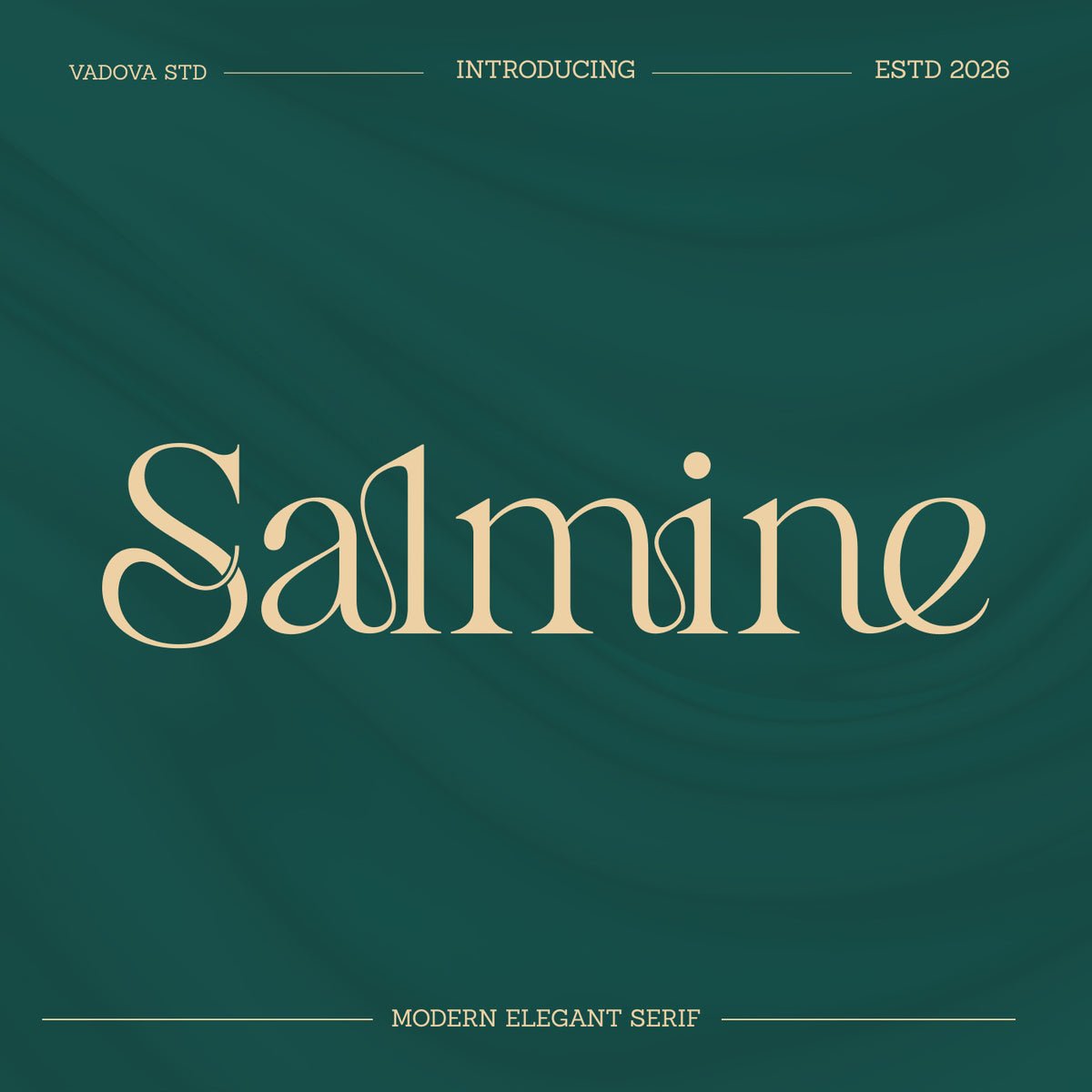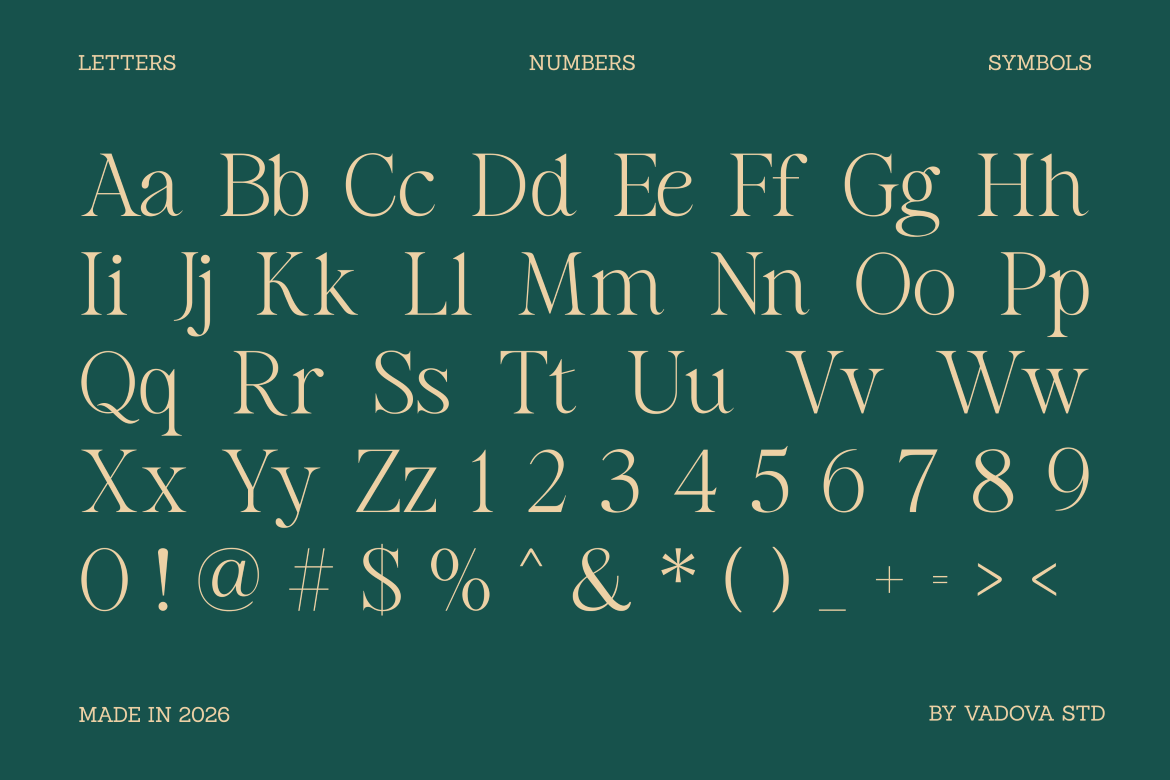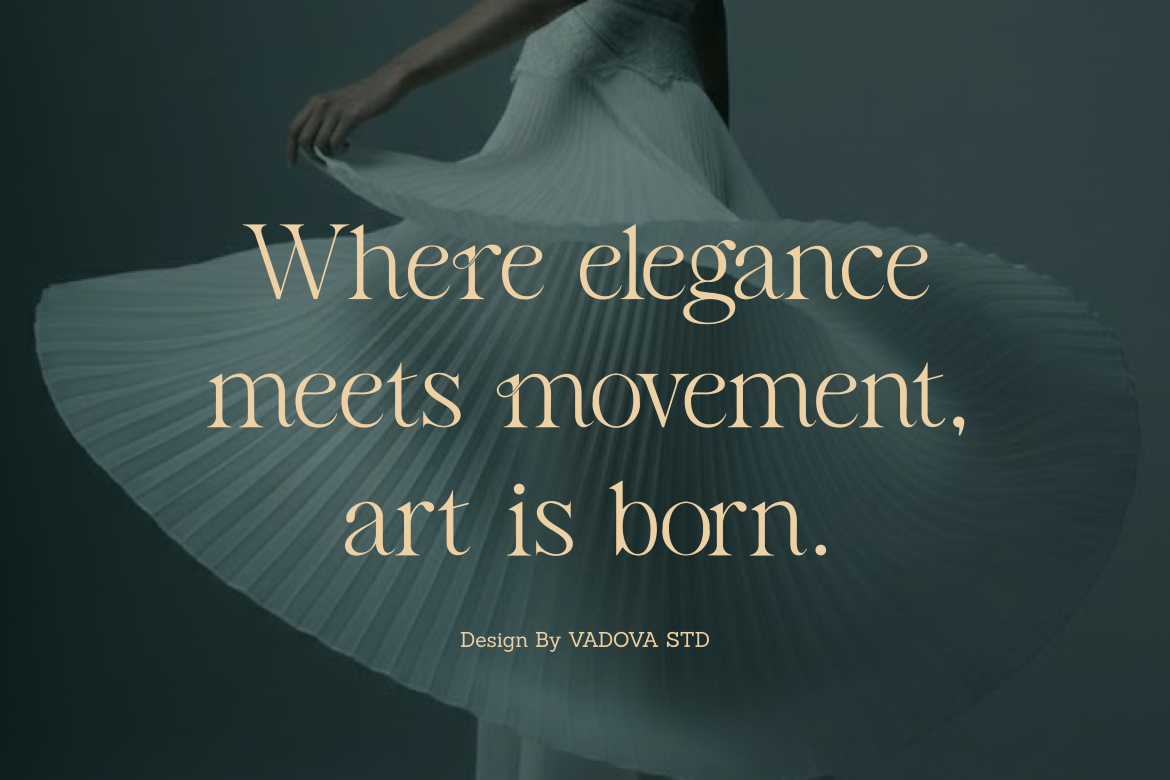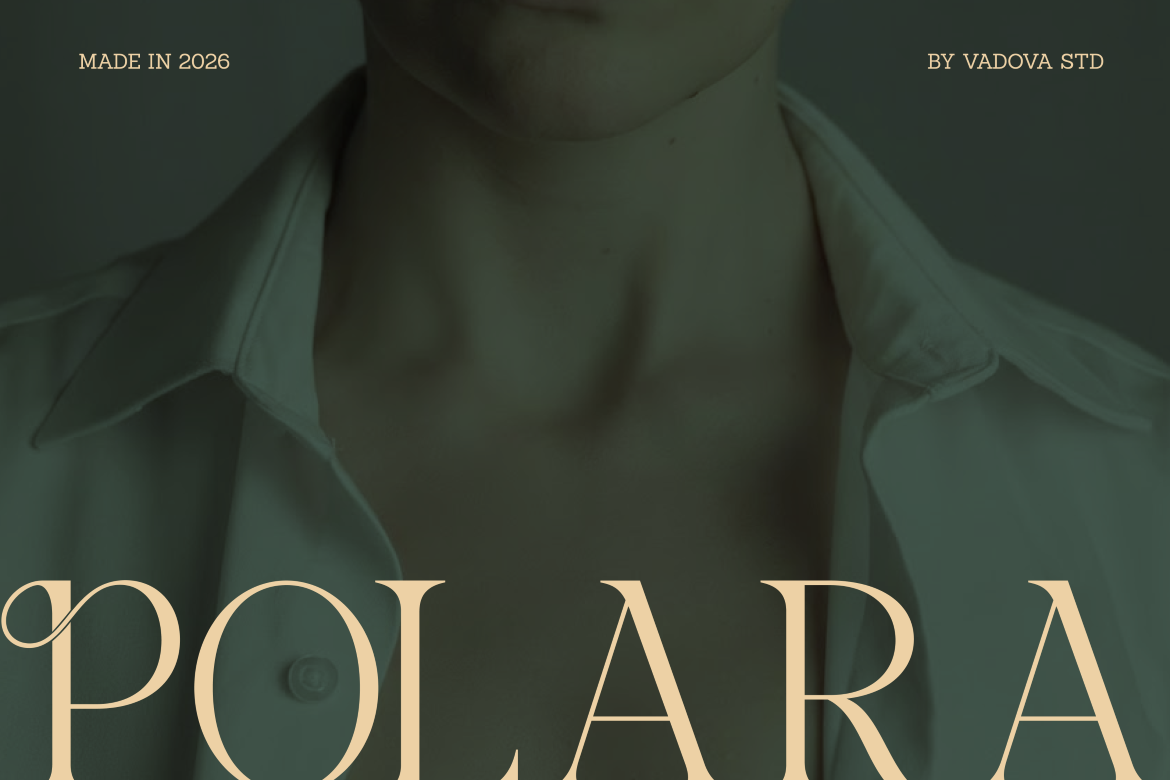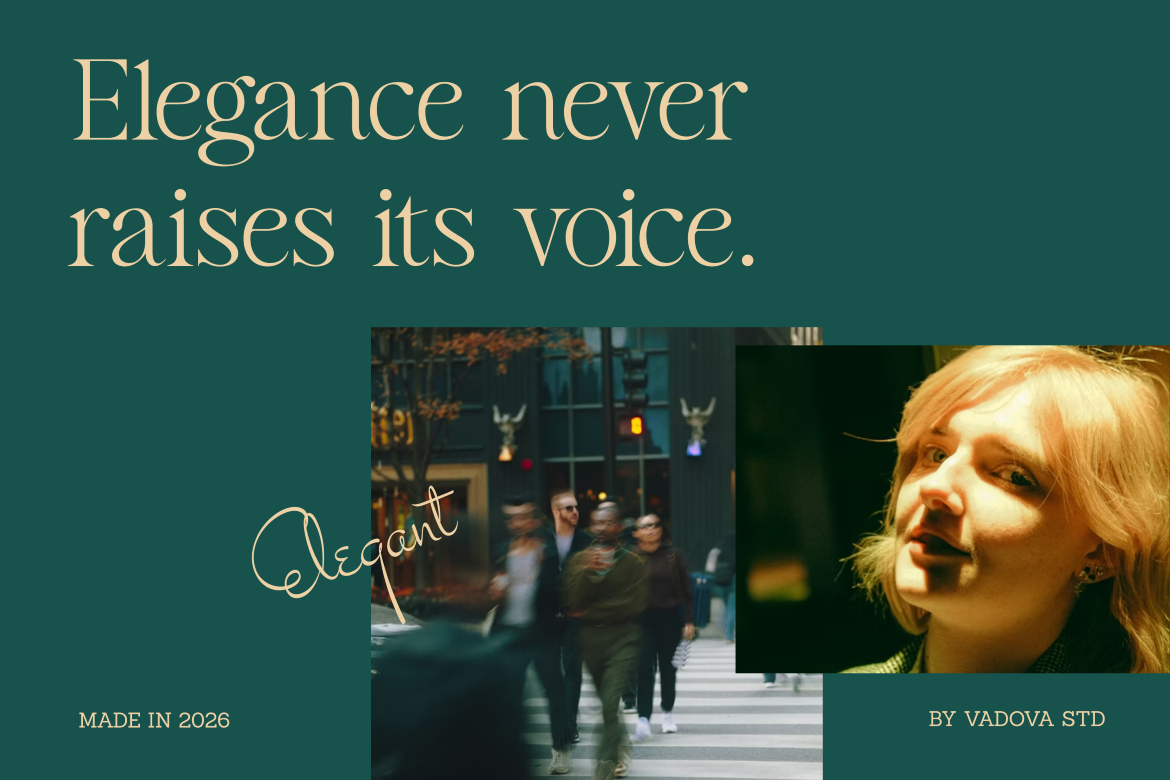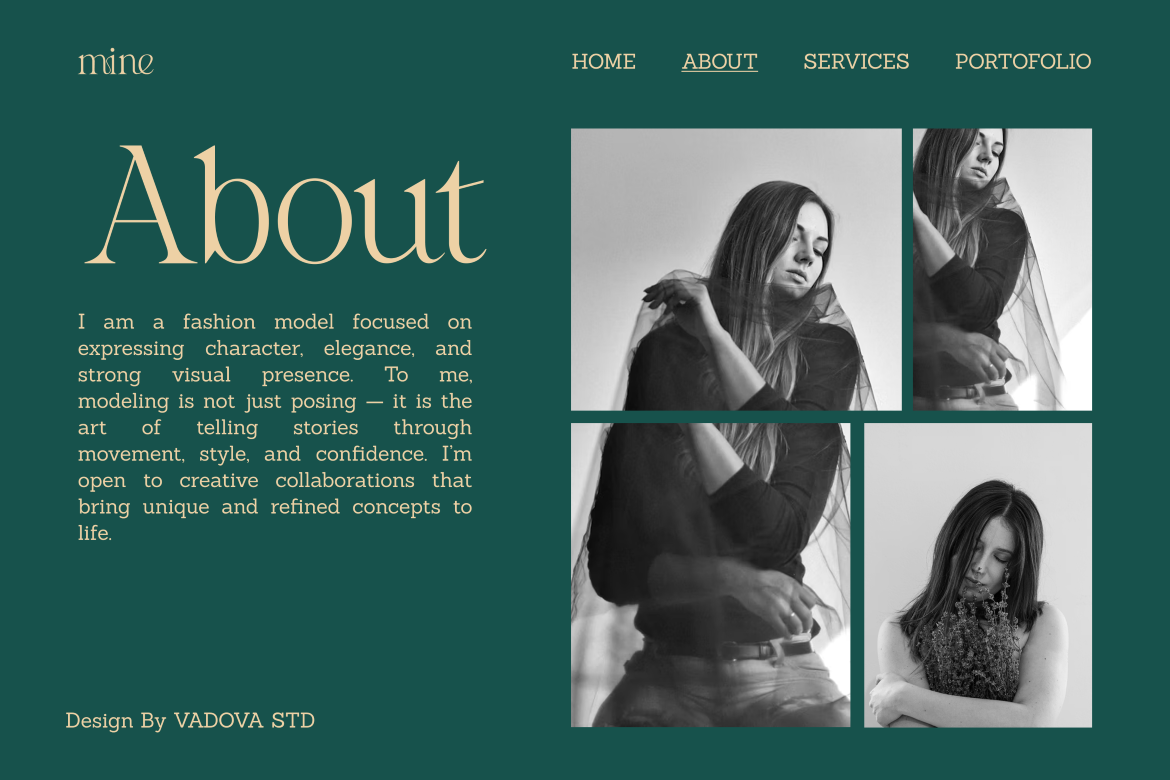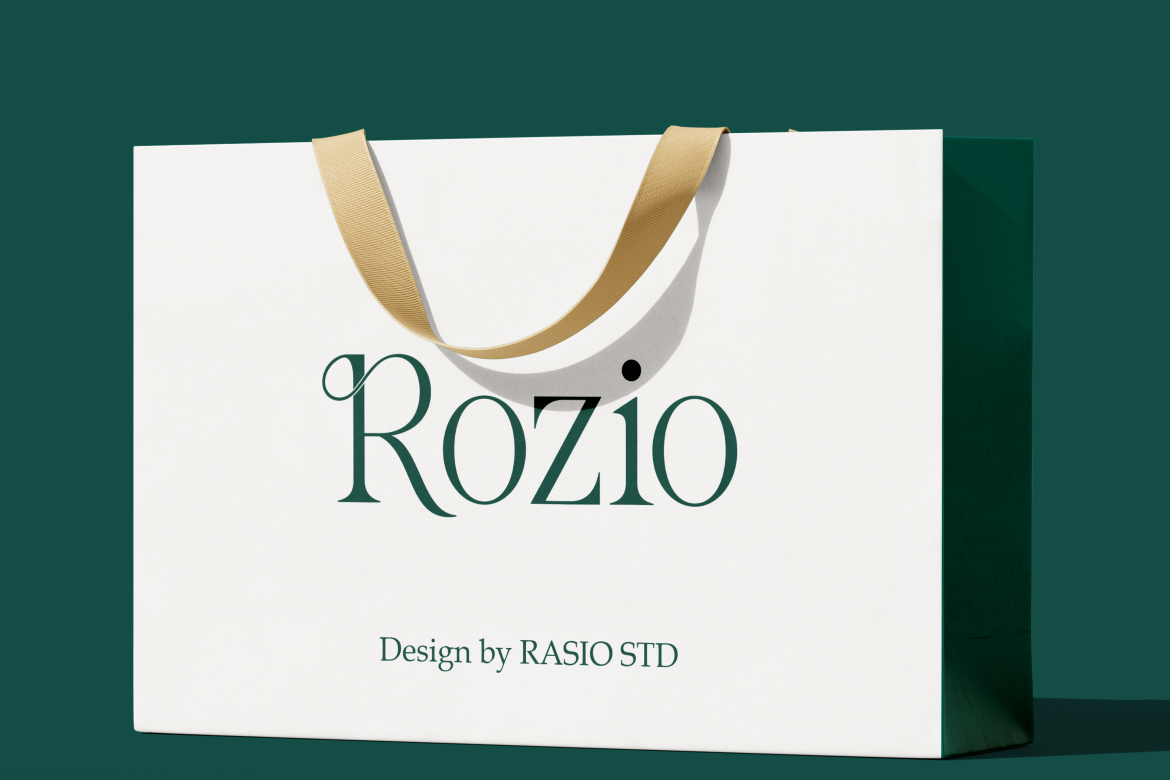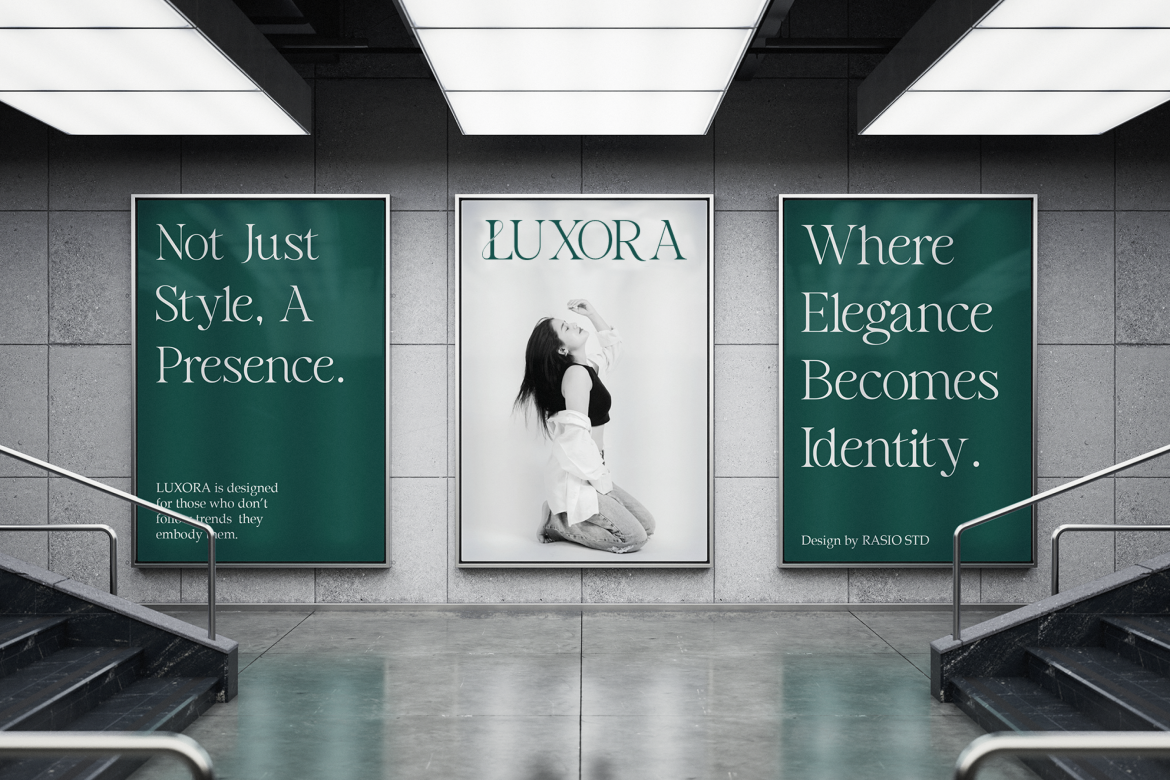
Salmine Modern Elegant Serif Font
Salmine is a modern serif font designed to deliver sophistication, luxury, and refined visual identity. This typeface features high-contrast strokes, smooth curves, stylish ligatures, and beautifully crafted letterforms that blend classic serif tradition with contemporary aesthetics. The elegant serif structure makes it perfect for projects that require a balance between classic sophistication and modern aesthetics.
Relevance and Uses Cases Salmine is highly relevant for designers and brands seeking a refined and upscale visual identity. It is ideal for fashion brands, beauty products, luxury packaging, wedding stationery, boutique logos, personal portfolios, magazine headlines, and social media branding.
Salmine Modern Elegant Serif Font is a serif typeface featuring high-contrast strokes, smooth curves, stylish ligatures, and detailed letterforms. It includes uppercase and lowercase characters, numerals, and punctuation, and is available in TTF, OTF, and WOFF formats.